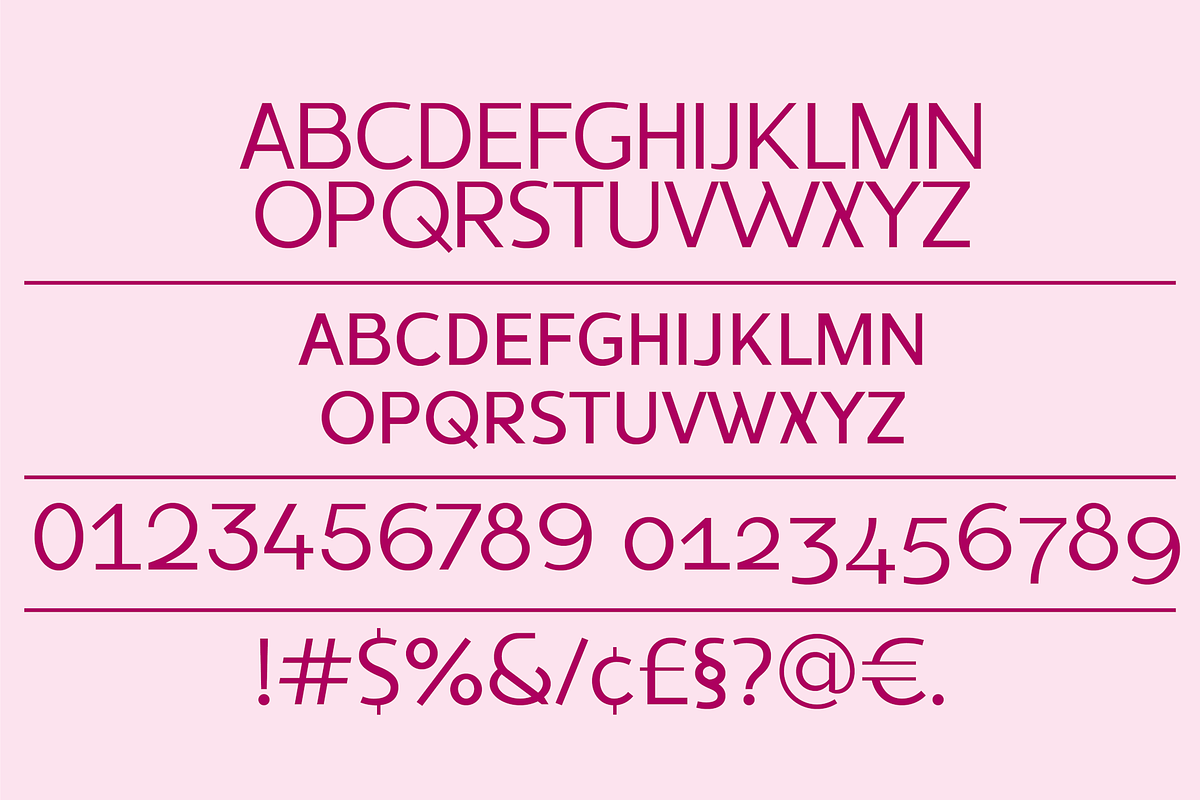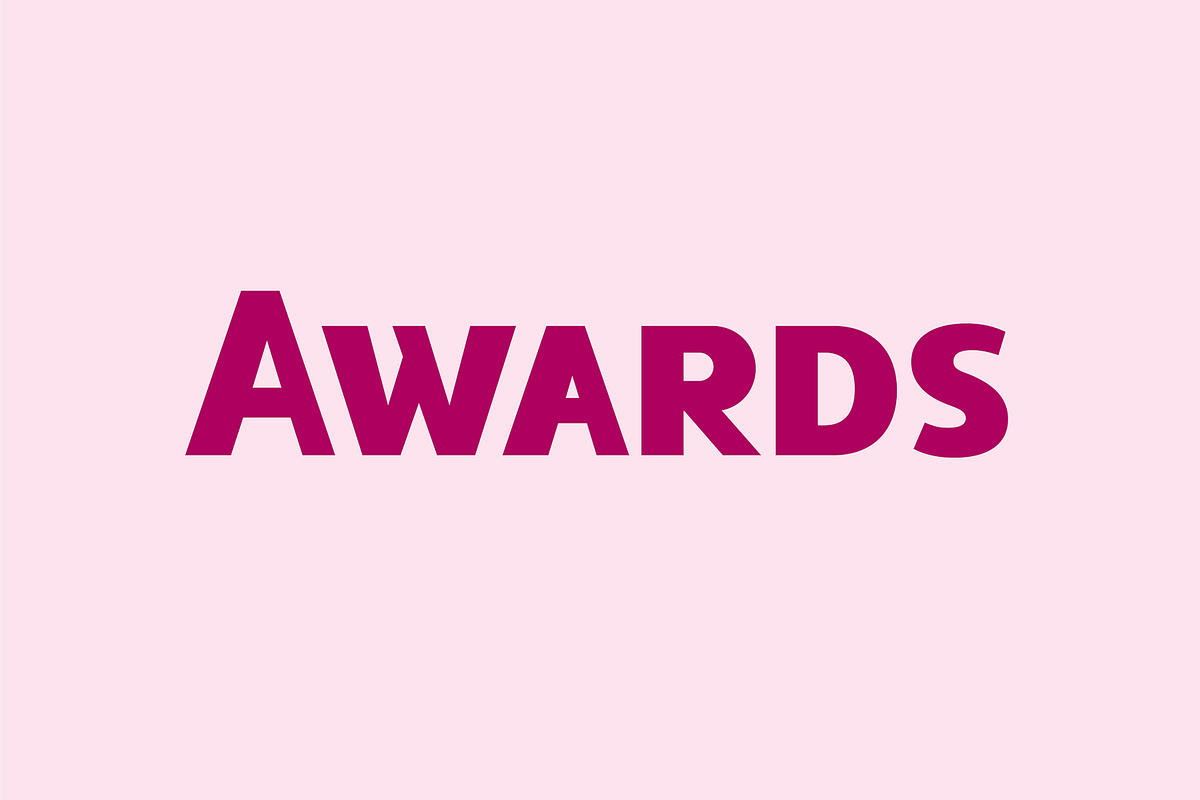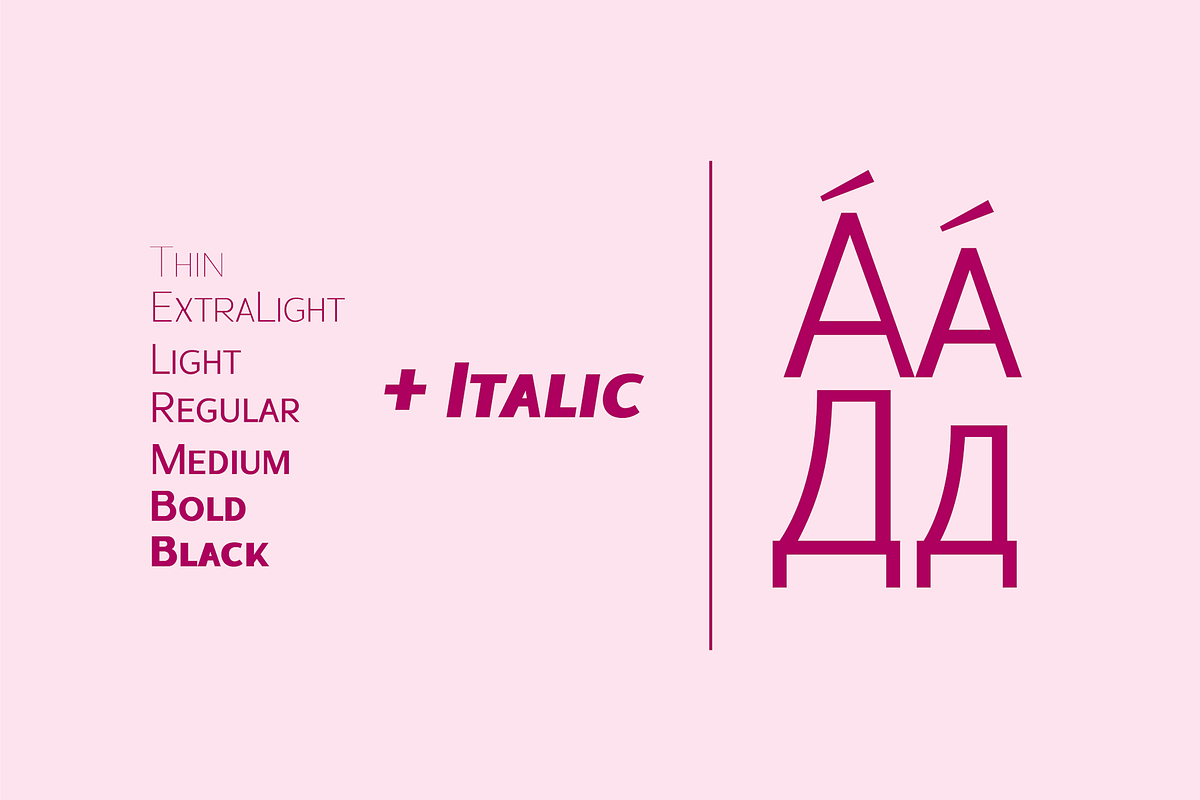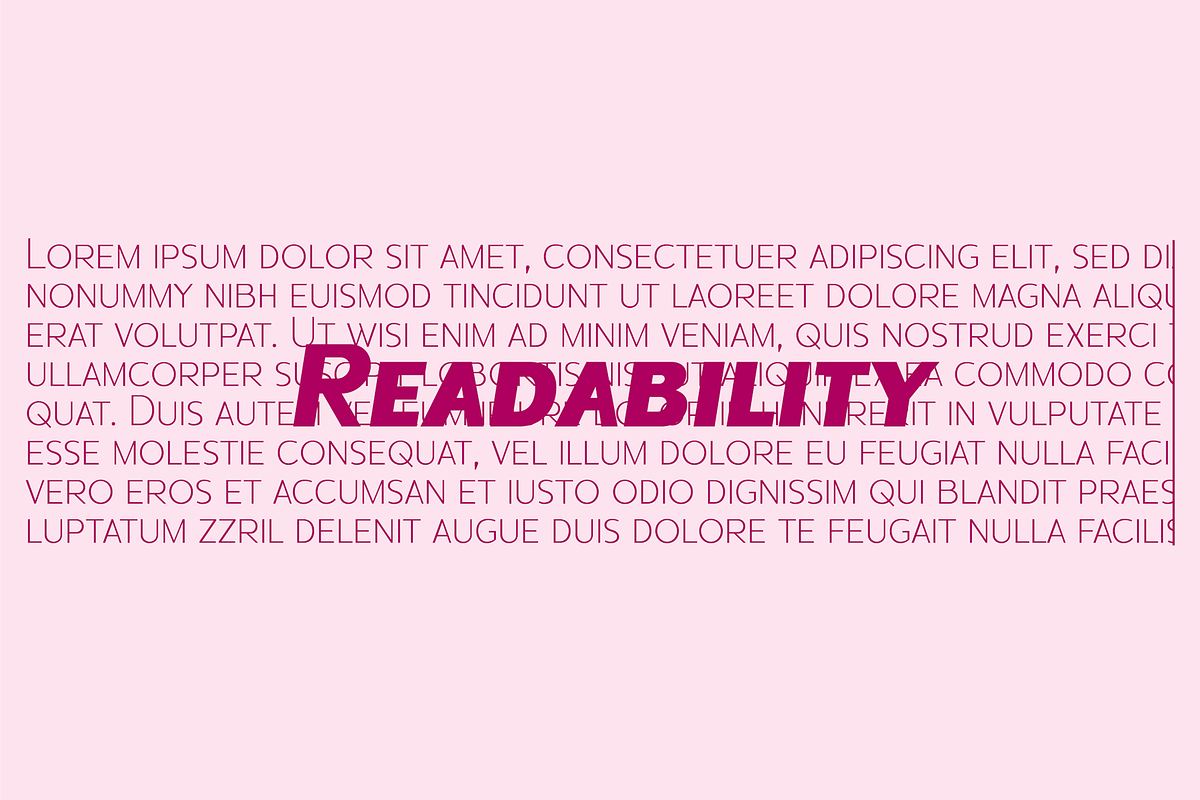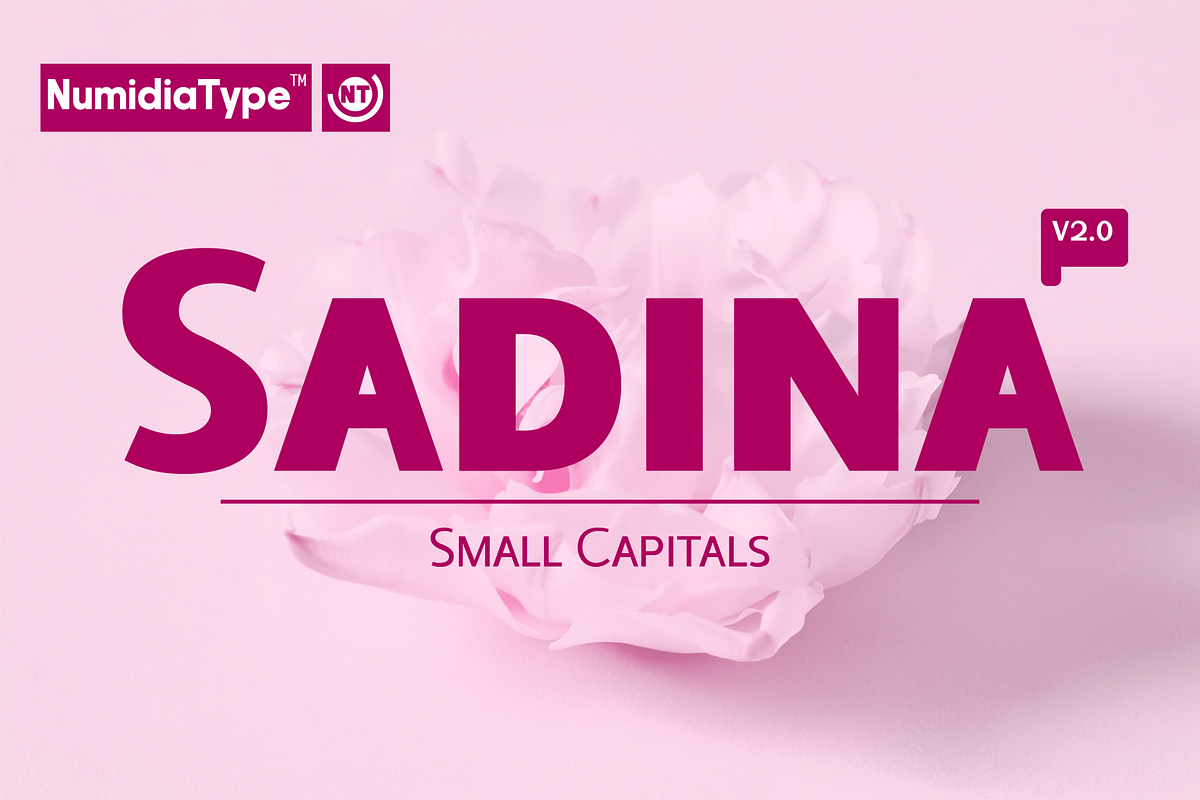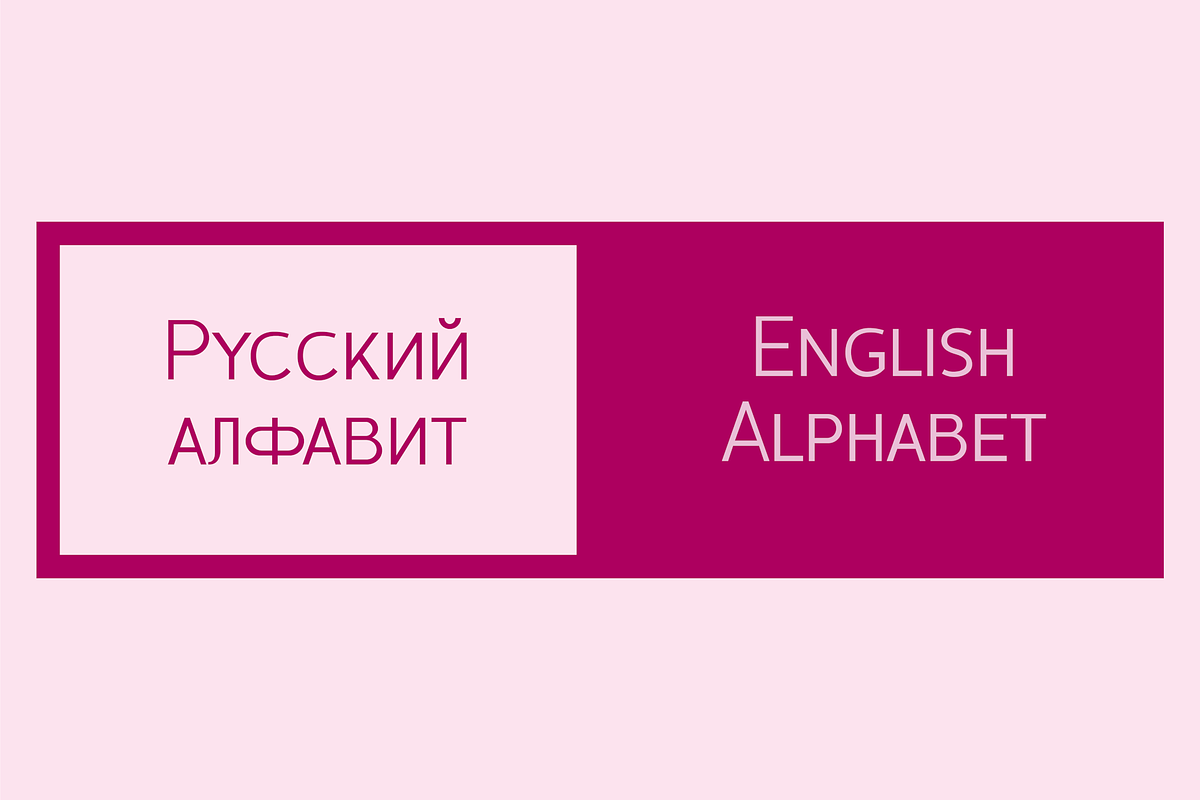
Sadina CA
Sadina™ CA is a specialized version of the Sadina™ font family designed to provide reliable small caps functionality. It addresses the common issue of inconsistent scaling in applications that don't fully support small caps features. This geometric sans serif font excels in display applications like web design, branding, and user interfaces due to its clean, modern aesthetic.